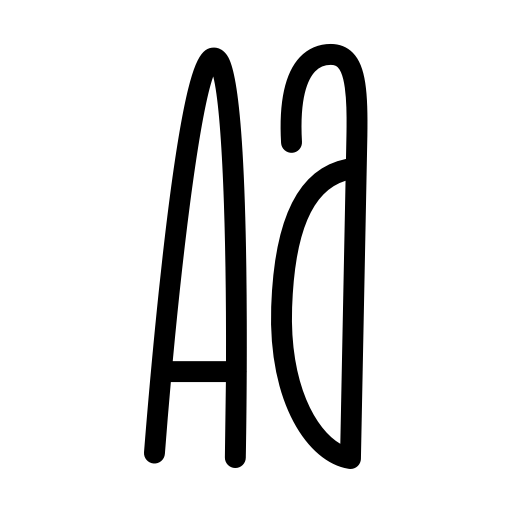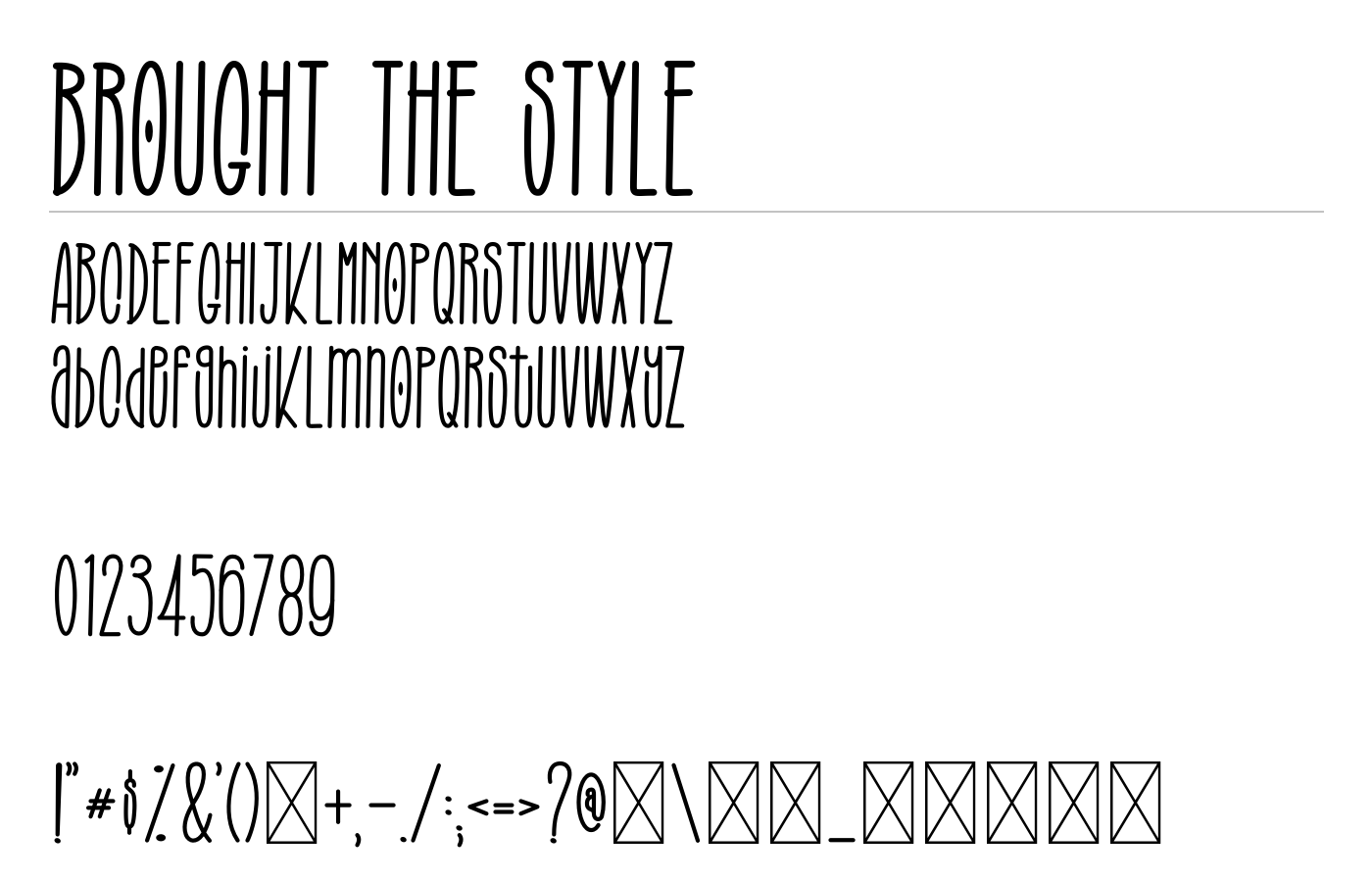
Brought The Style is a tall, narrow sans serif font with a playful yet elegant vibe, featuring elongated letterforms and slight irregularities that give it a hand-drawn feel. Its light weight and thin strokes create a delicate and airy impression, making it ideal for creative headlines, fashion branding, or artistic editorial uses where a unique and modern touch is desired. This font works well when you want to add personality and a stylish flair without sacrificing readability.
BROUGHT THE STYLE Font
About BROUGHT THE STYLE Font